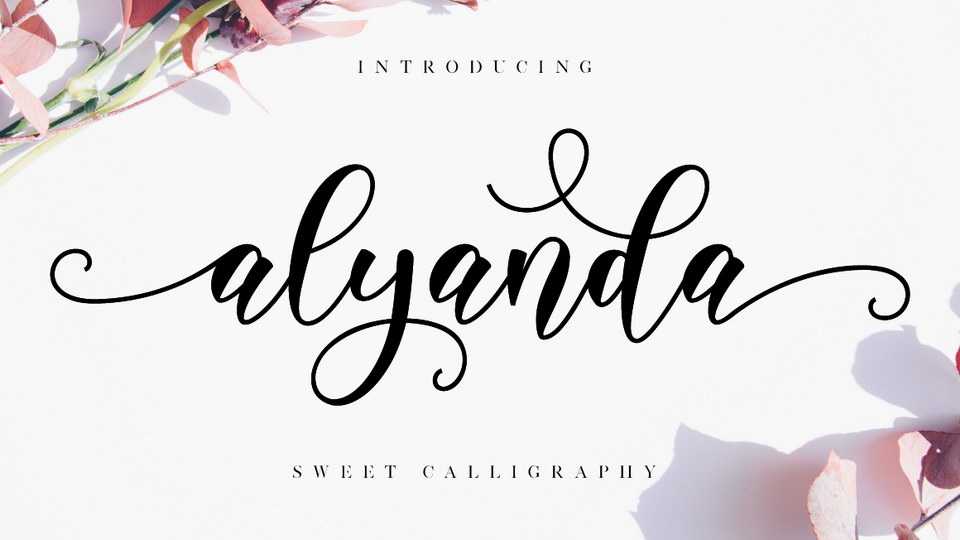
Download Alyanda font, a lovely handwritten script with a classy, elegant, and modern look. Alyanda script can be used for logos, branding, invitations, stationary, wedding designs, social media posts, and every other design which needs a handwritten touch.
Designer: Nissa Studio